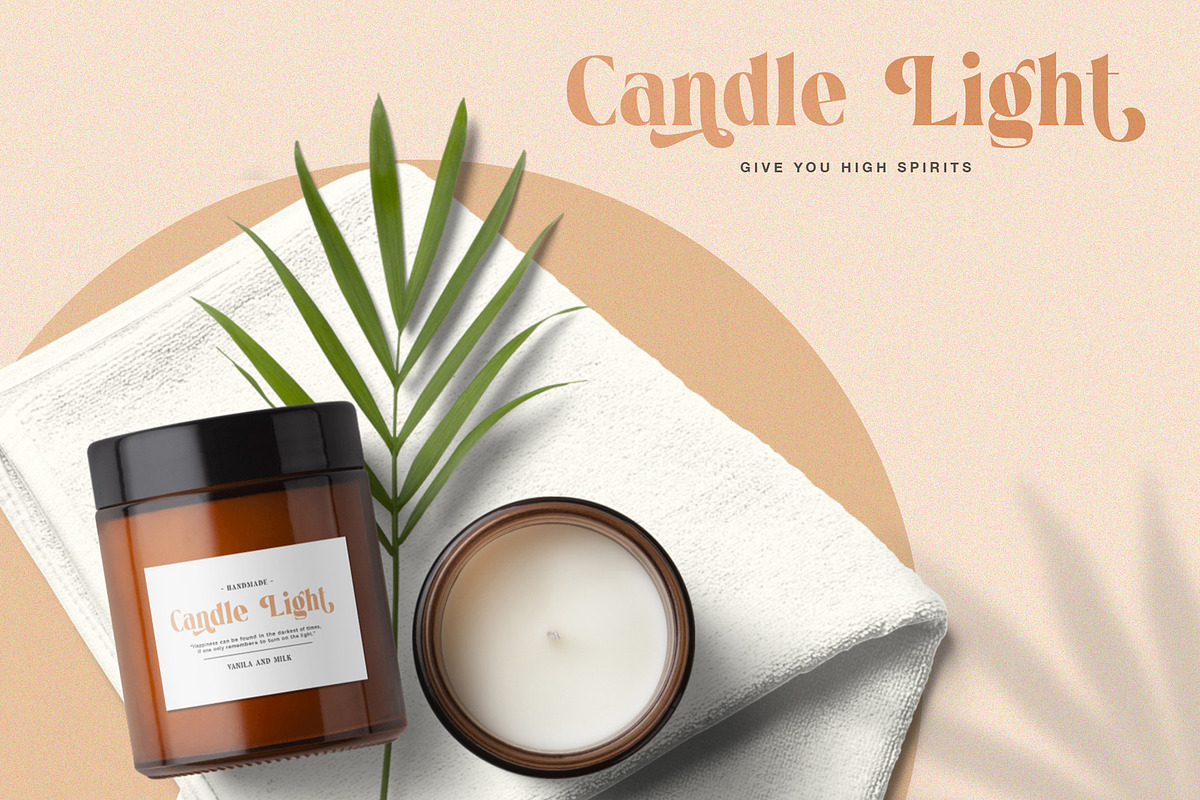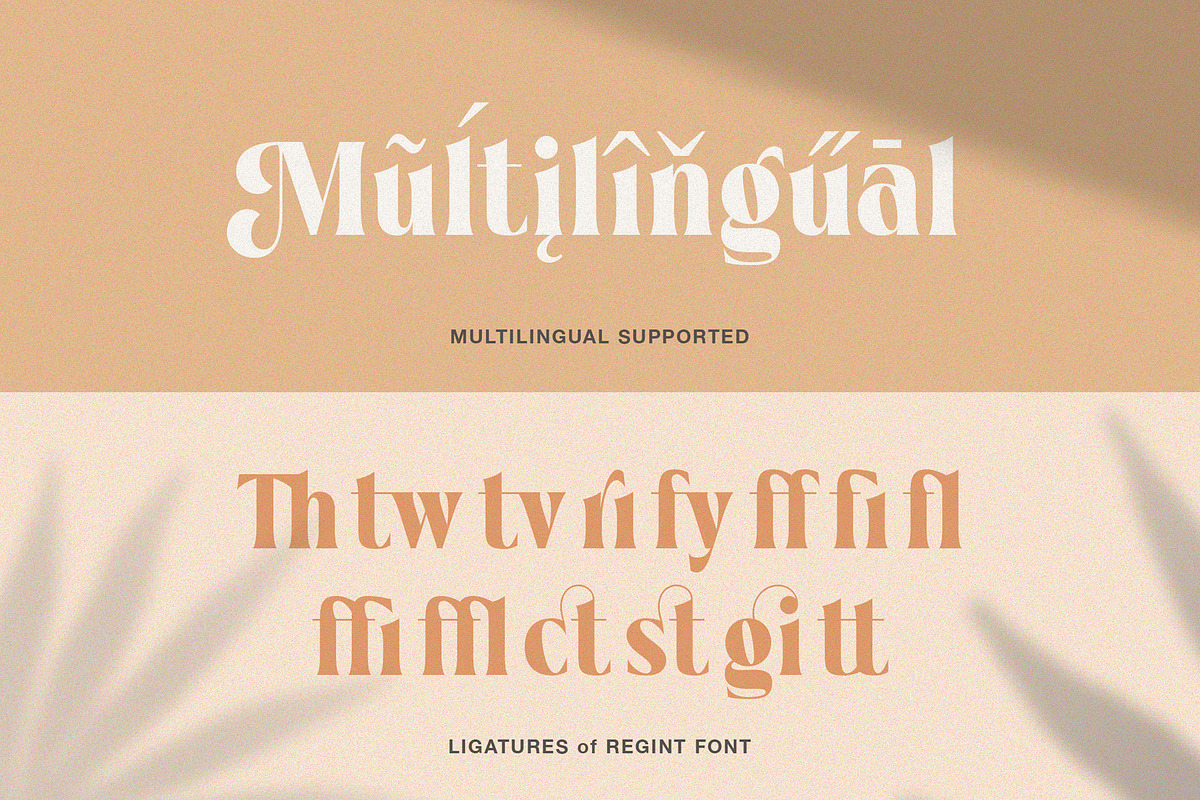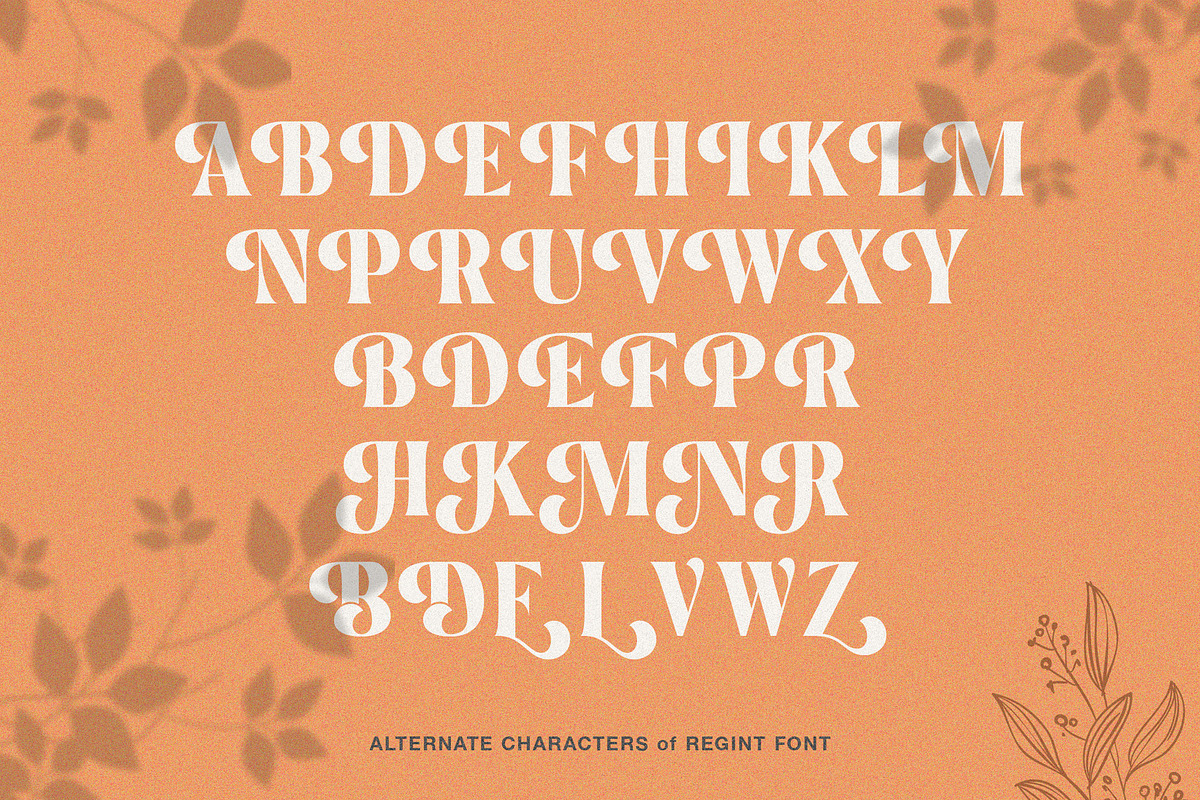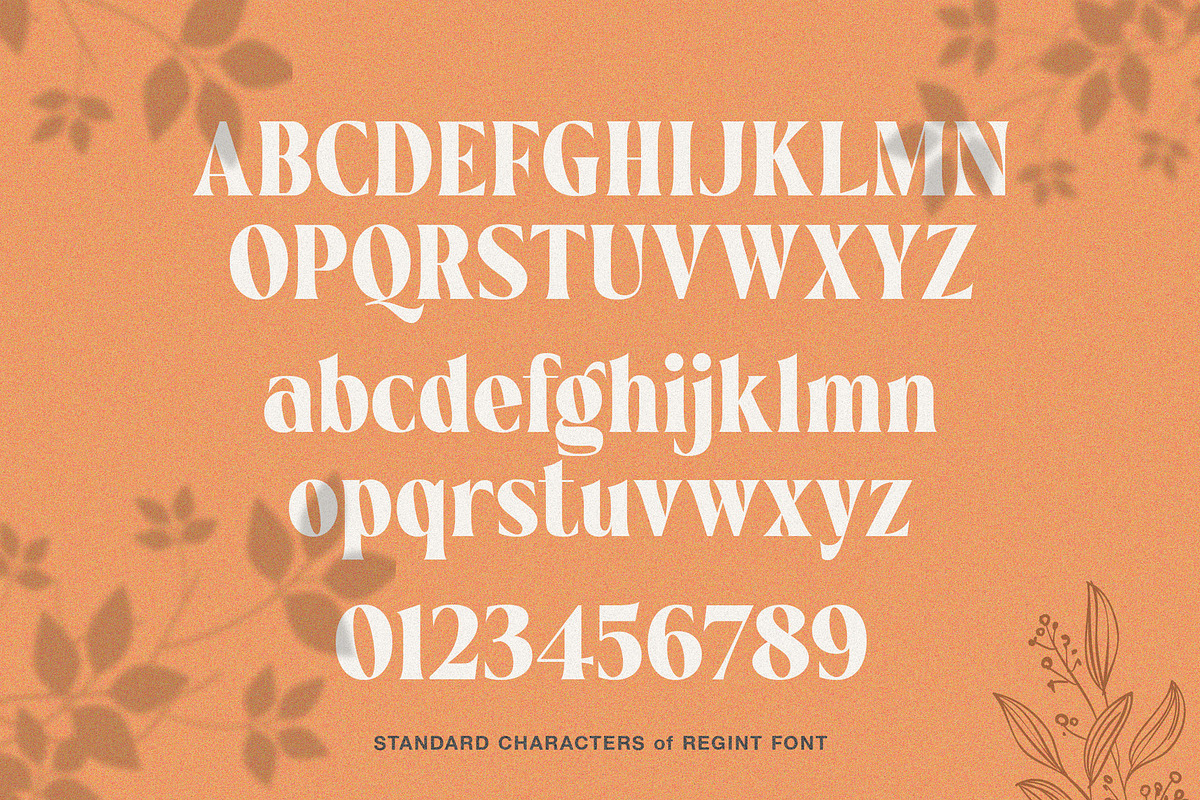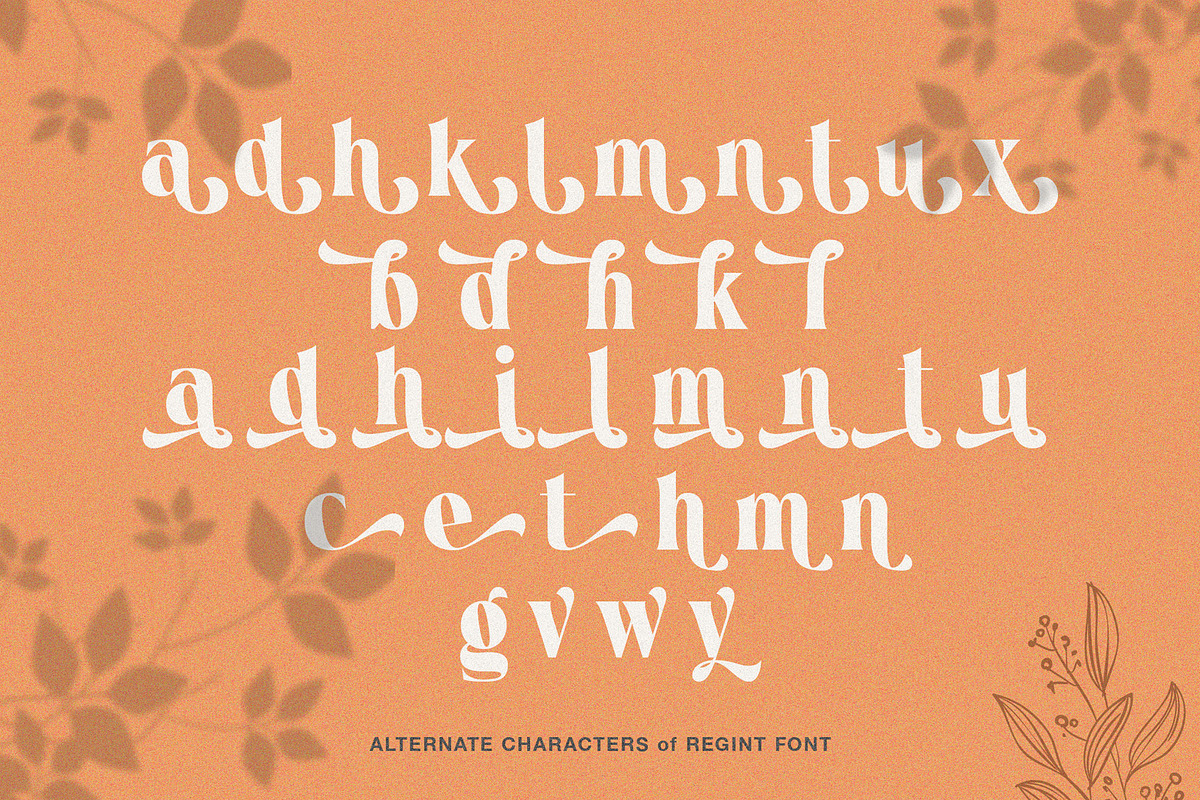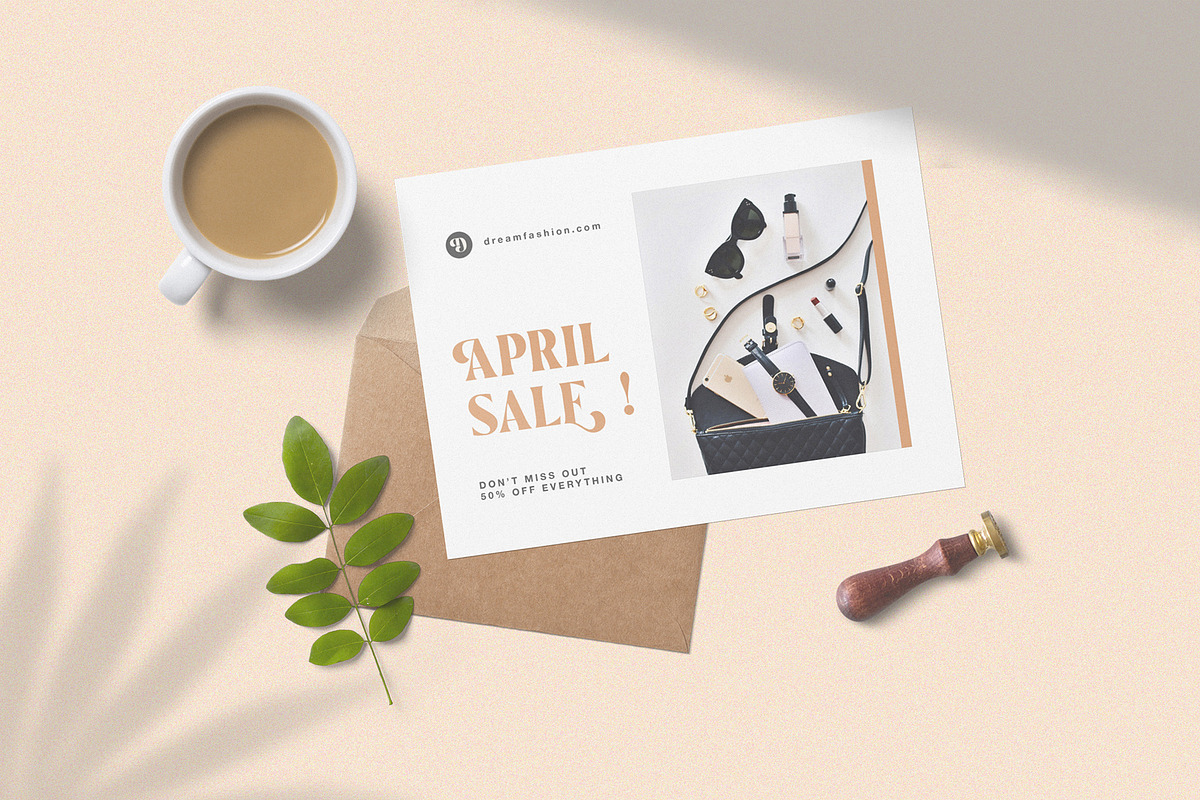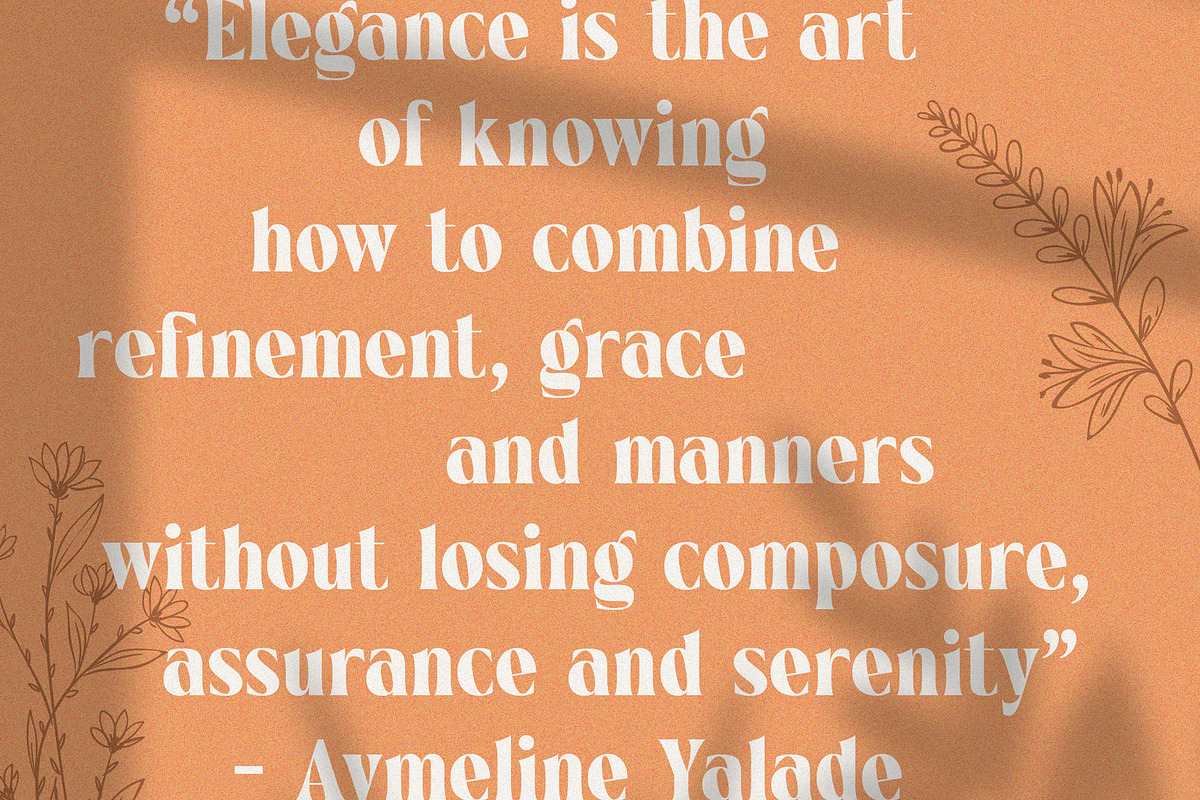
Regint | Display Serif
Regint – An Elegant Serif Display Font
Regint perfectly represents modern and contemporary era but it’s strong modern appearance. We decided to make new unique alternates character that had that classy feel. It's a very versatile font that works great in large and small sizes. And an upper and lowercase serif font with nicely balanced curves. Carefully made with perfectly horizontal vertical bezier handles. Every single letter contains beautiful alternates characters (ss01 – ss04) and feature ligatures.
Regint matches applies in some designs such as the logotype, brand, packaging, branding, quotes, business cards and more custom design. The features uppercase, lowercase, numeral, punctuation & symbol, ligatures, alternates, multilingual support, PUA encoded (fully accessible without additional design software).